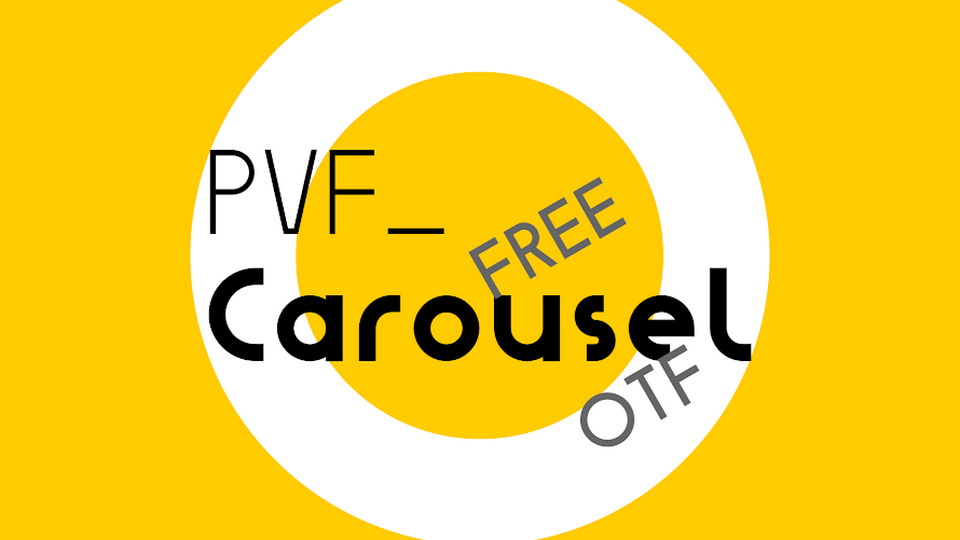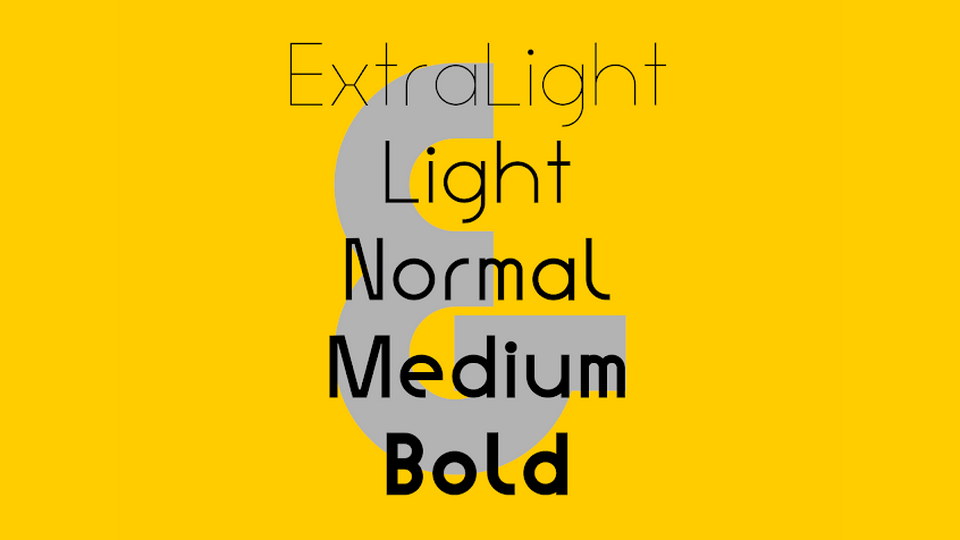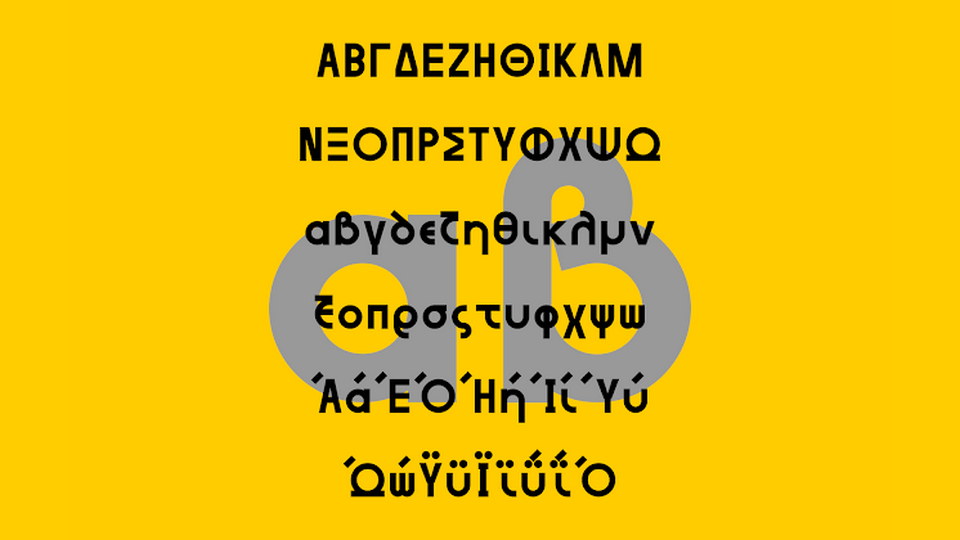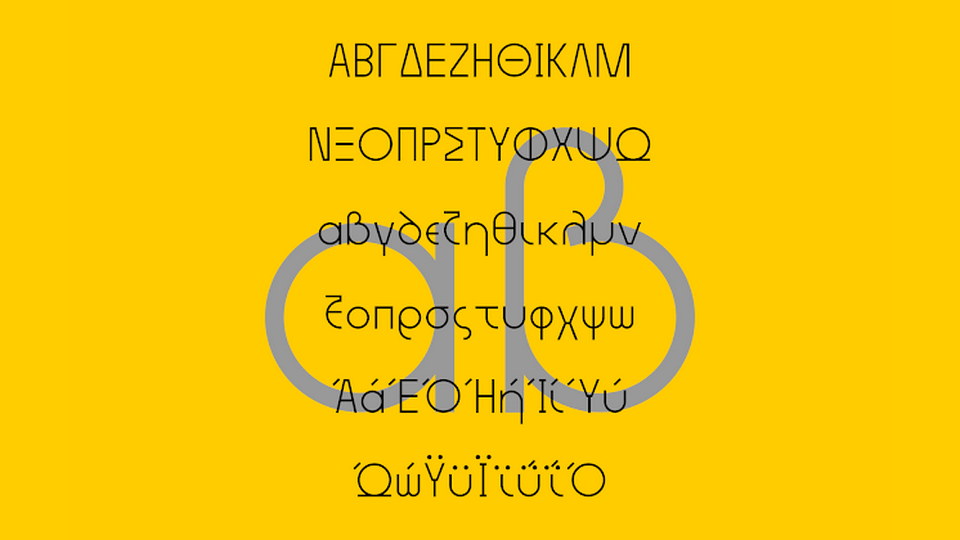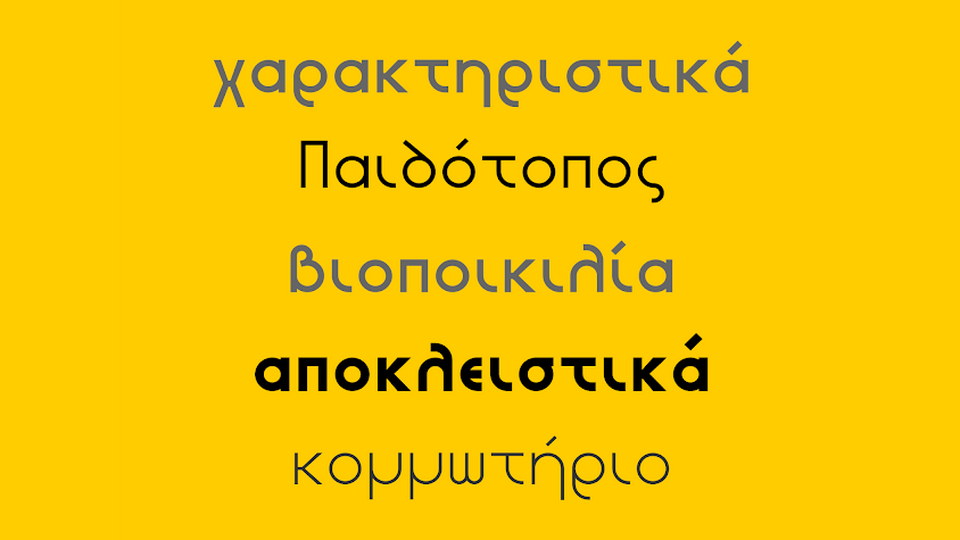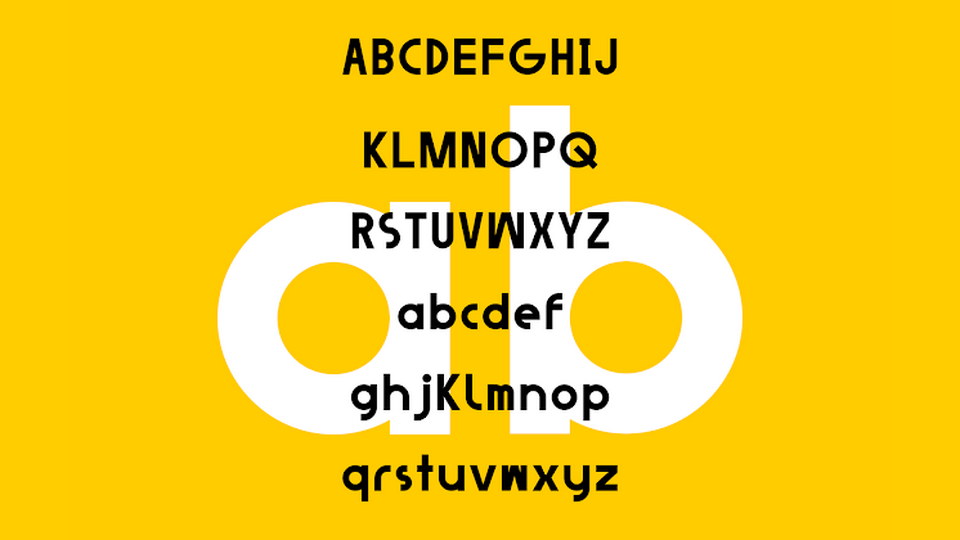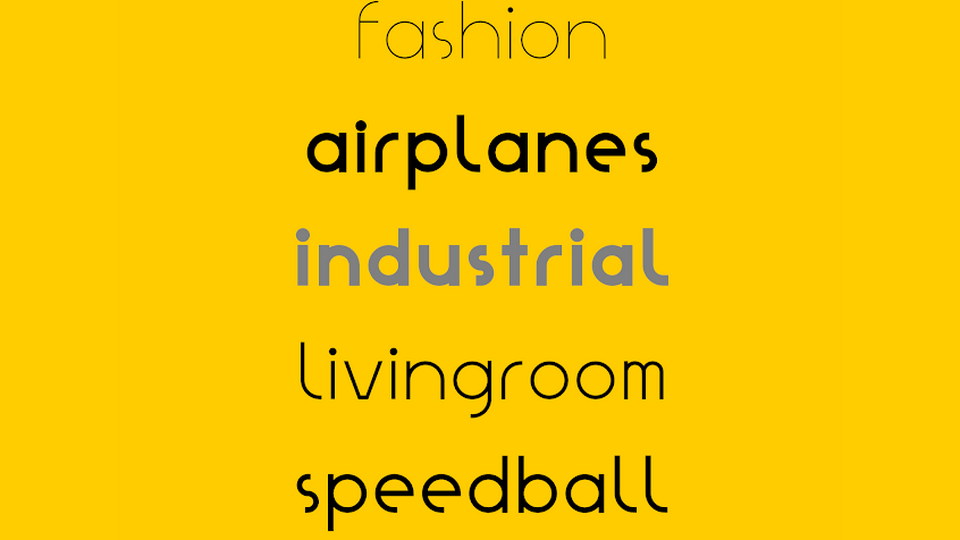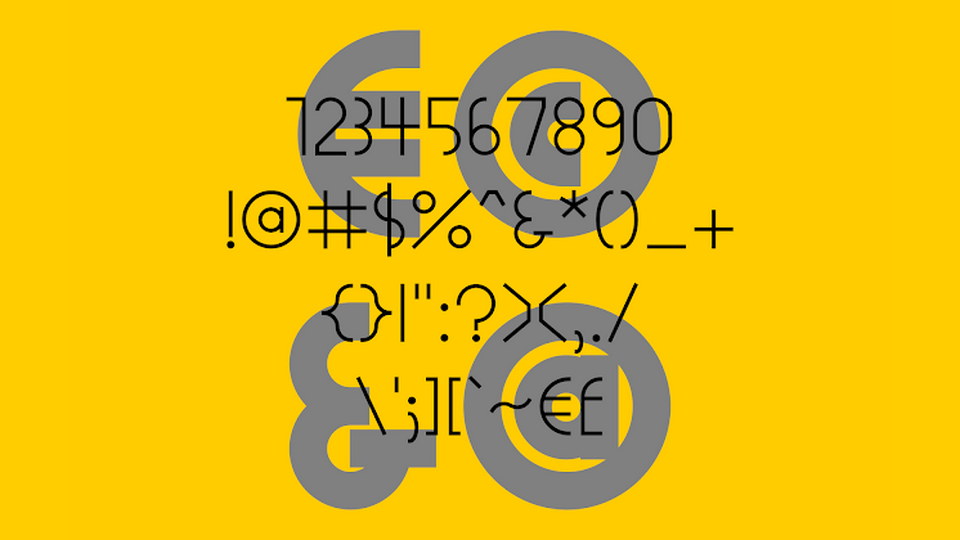
PVF Carousel is a geometric sans serif, the great mixture of Humanist and Transitional touch in a modern geometric monoline typeface.
Carousel brings ExtraLight, Light, Normal (Regular), Medium, and Bold weights including Greek, Latin, numbers, and special characters.